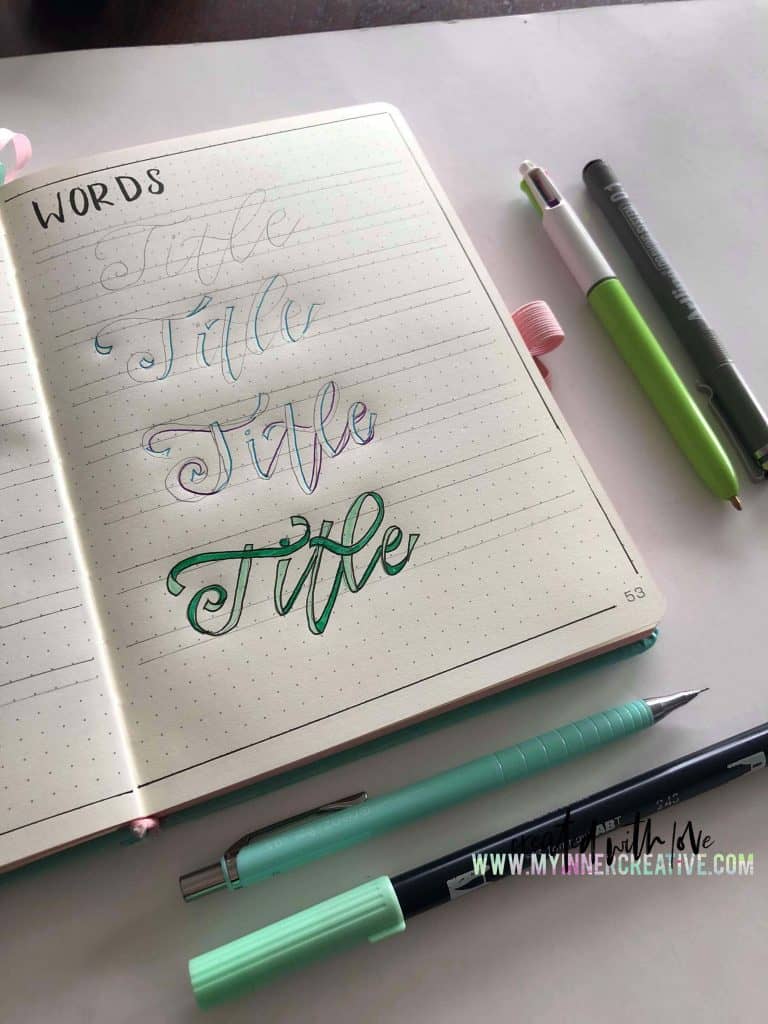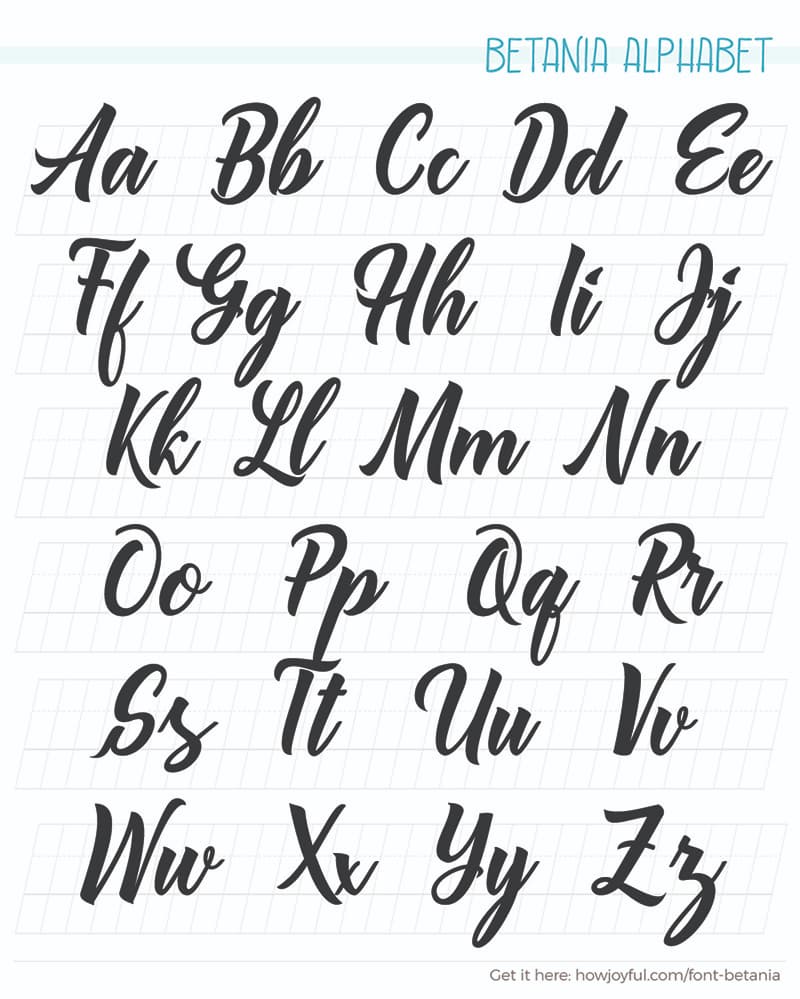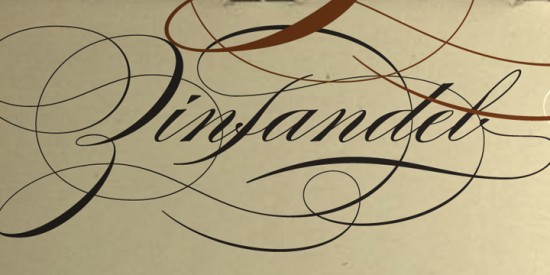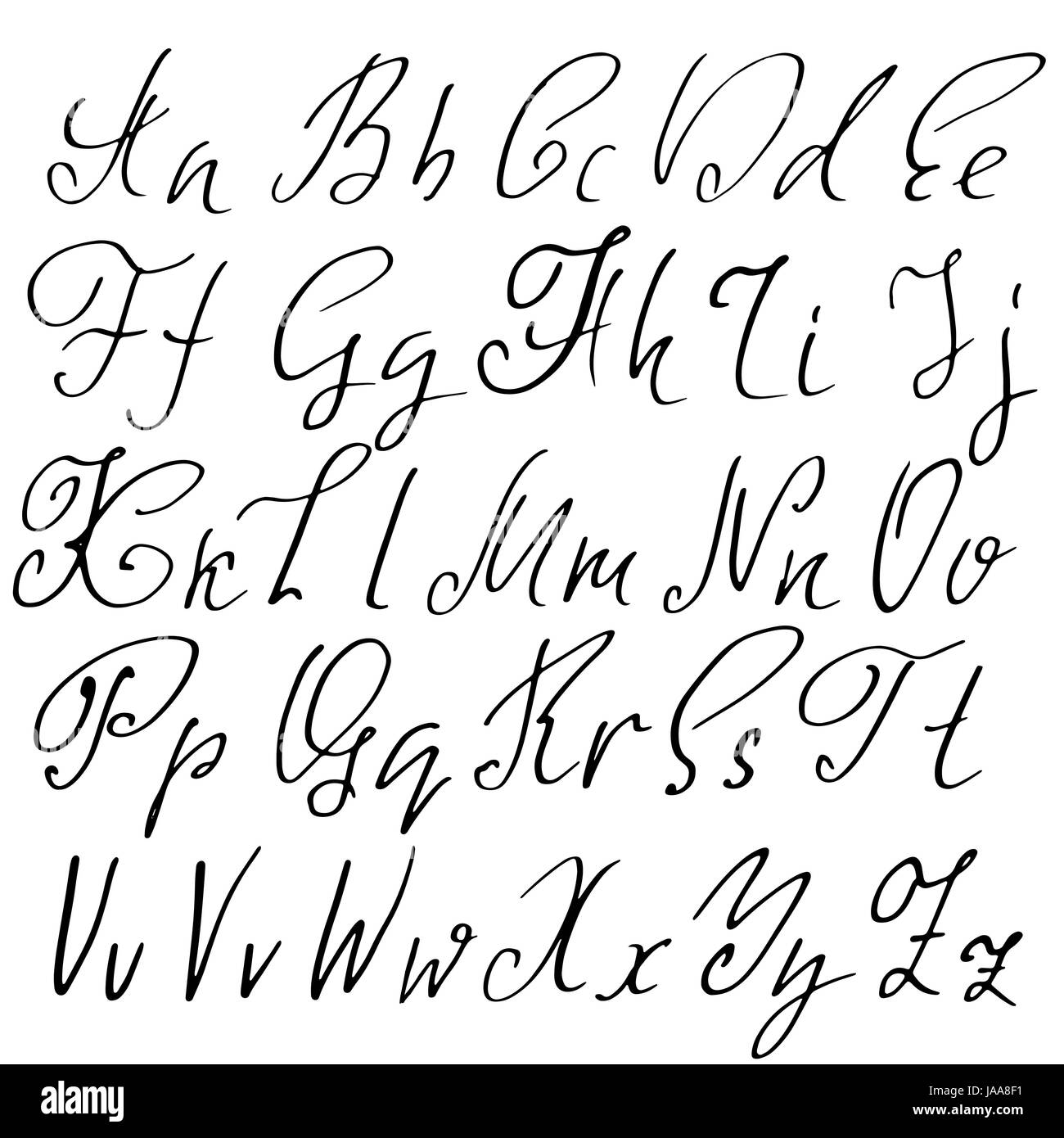
The Cacographie Calligraphy Font is a signature decorative font with which you can achieve a handwritten-type lettering feeling. This calligraphy style is perfect for your modern graphic design needs.
The writing is readable but is usually extravagant and embellished with flourishes.
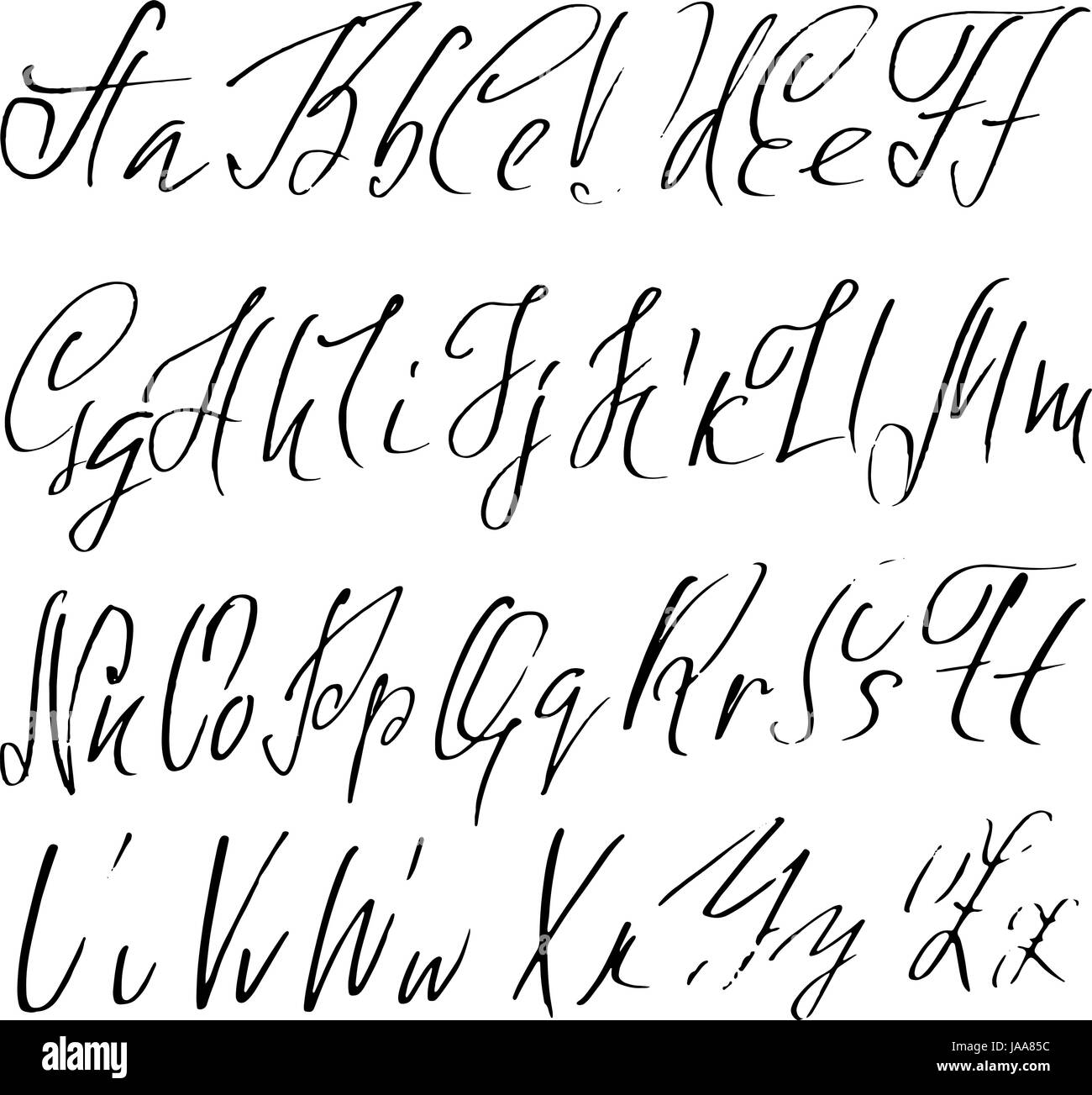
Lettering calligraphy font styles. Features more than 13500 free fonts. Font Size 24pt 26pt 28pt 32pt 36pt 40pt 44pt 48pt 54pt 60pt 66pt 72pt 80pt 88pt 96pt 106pt 116pt 128pt 142pt 158pt 178pt 198pt 218pt 240pt. The height of calligraphy was reached in the middle age where monks developed the narrow writing style called gothic allowing more words to fit on a single line as paper was expensive at the time.
In most cases a writing font refers to a font that has a hand-drawn or handwriting aesthetic. Download calligraphy fonts fancy decorative sansserif and more. Calligraphy fonts are more artistic than the average font often using a script style to emulate the look of handwriting.
This means it includes a lot of styles. Cacographie Calligraphy Font its a multilingual lettering font with Greek of course Latin character set and diacritics. A lovely calligraphy font redesigned by Fredrick Nader and Roger S.
The main sub-styles are traditional calligraphy and modern calligraphy. Calligraphy is an ancient writing technique using flat edged pens to create artistic lettering using thick and thin lines depending on the direction of the stroke. Archive of freely downloadable fonts.
Font generator will convert your text letters using calligraphy fontClick a copy buttonPaste it as plain text. This could include anything from informal kids handwriting fonts to ultra-decorative calligraphy styles. Modern calligraphy is any calligraphy style that does not follow the fundamental rules of traditional calligraphy scripts such as Copperplate Spencerian Italic Blackletter etc.
How to text with calligraphy font letters Use the input field above to type in your message. There are many different types of writing fonts. Calligraphy is an artistic writing style where the pressure is varied to create thick and thin lines all in a single stroke.
Calligraphy fonts are widely used in wedding event invitations original logo design religious art films TV etc. Rules govern the shape and execution of these letters similarly to a font. Enter custom sample text to change the font previews below.
Calligraphy is the design and creation of hand lettering with a brush or other writing tool. Nelson the scriptina pro is a beautiful font crafted to fit any design layout. Burgues Script created by Alejandro Paul is a typical font family of calligraphy style.
Lamar pen is a stunning calligraphy font designed by Mirabeau Buonaparte Lamar is a fascinating style with words combining in an elegant and stylish way. Traditional calligraphy covers specific hand-lettering styles like Copperplate and Spencerian that were created with distinct strokes and formations. Modern calligraphy typefaces differ from traditional calligraphy in that they do not adhere to specific lettering rules.
Fonts per page 10 20 50 Sort fonts by. It usually involves a nibbed pen or brush. Modern calligraphy relies on certain principles of traditional calligraphy.